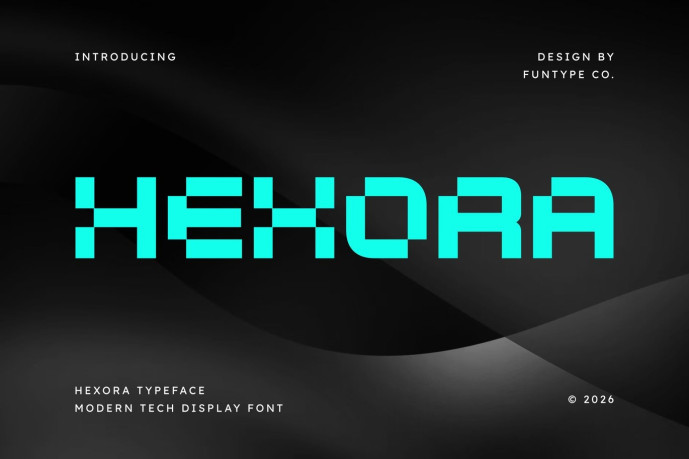
Hexora – Modern Tech Display Font
Designer: Achmad Iswanjaya
Hexora is a bold, high-impact, and modern tech display font, engineered to bring an authoritative cybernetic presence, modular pixelated grid structure, and cutting-edge digital aesthetic to contemporary display layouts. Featuring a distinct block composition, precision-cut pixel accents, and futuristic geometric contours, Hexora introduces a premium high-tech editorial, artificial intelligence, digital gaming, and prominent media identity designed to claim absolute visual focus.
This font family is the ultimate choice for creative directors, digital gaming publishers, and agency brand designers looking to implement a robust typography identity for major text hierarchies. Whether you are developing bold corporate enterprise logotypes, science fiction book layouts, tech-lifestyle branding, cinematic movie title sequences, esports presentation headers, or prominent digital web banners, Hexora stands out with supreme legibility and structural confidence.
Main Features:
Modern Tech Display Structure: Optimized with a solid modular pixel grid alignment for high-impact title compositions.
Precision Pixelated Geometry: Bold block lines with distinctive digital cuts crafted to secure instant audience attention.
Premium Cybernetic Aesthetic: Clean linear strokes balanced with futuristic digital contours, perfect for cutting-edge corporate identities and digital gaming media networks.
Best Used For: High-end tech editorial layout design, futuristic lifestyle branding, corporate presentation titles, cinematic sci-fi title sequences, AI and coding firm marketing materials, gaming stream overlays, cybersecurity branding, and prominent online media splash banners.